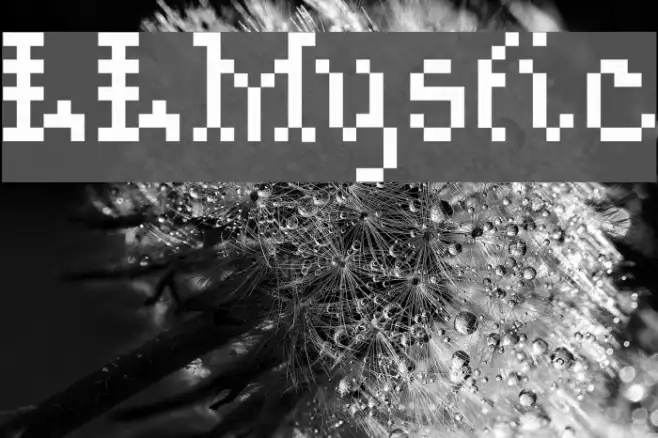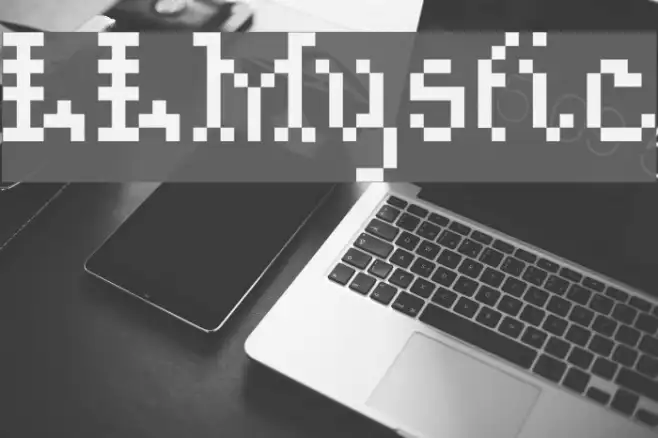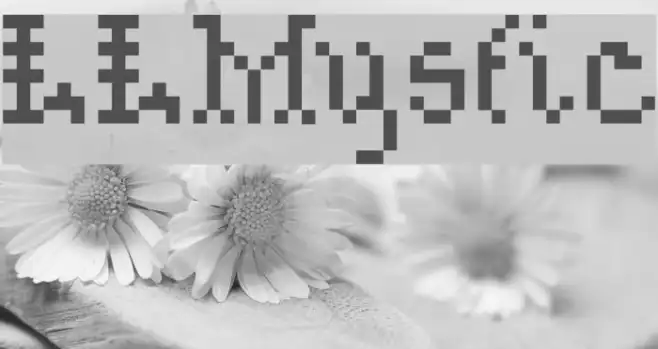
LLMystic Font
LLMystic Description
This font features a pixelated, blocky style reminiscent of early digital or video game typography. Each character is composed of small square blocks, giving it a retro, 8-bit appearance. The uppercase letters are bold and distinct, while the lowercase letters maintain the same pixelated structure, offering a cohesive look. Numbers and special characters follow the same design principle, ensuring uniformity across all elements. The font's unique style makes it stand out, ideal for projects that aim to evoke nostalgia or a digital aesthetic.
| Proposed Projects | Ideal for video game design, retro-themed posters, digital art projects, or any creative work that seeks to capture a nostalgic or tech-inspired feel. |